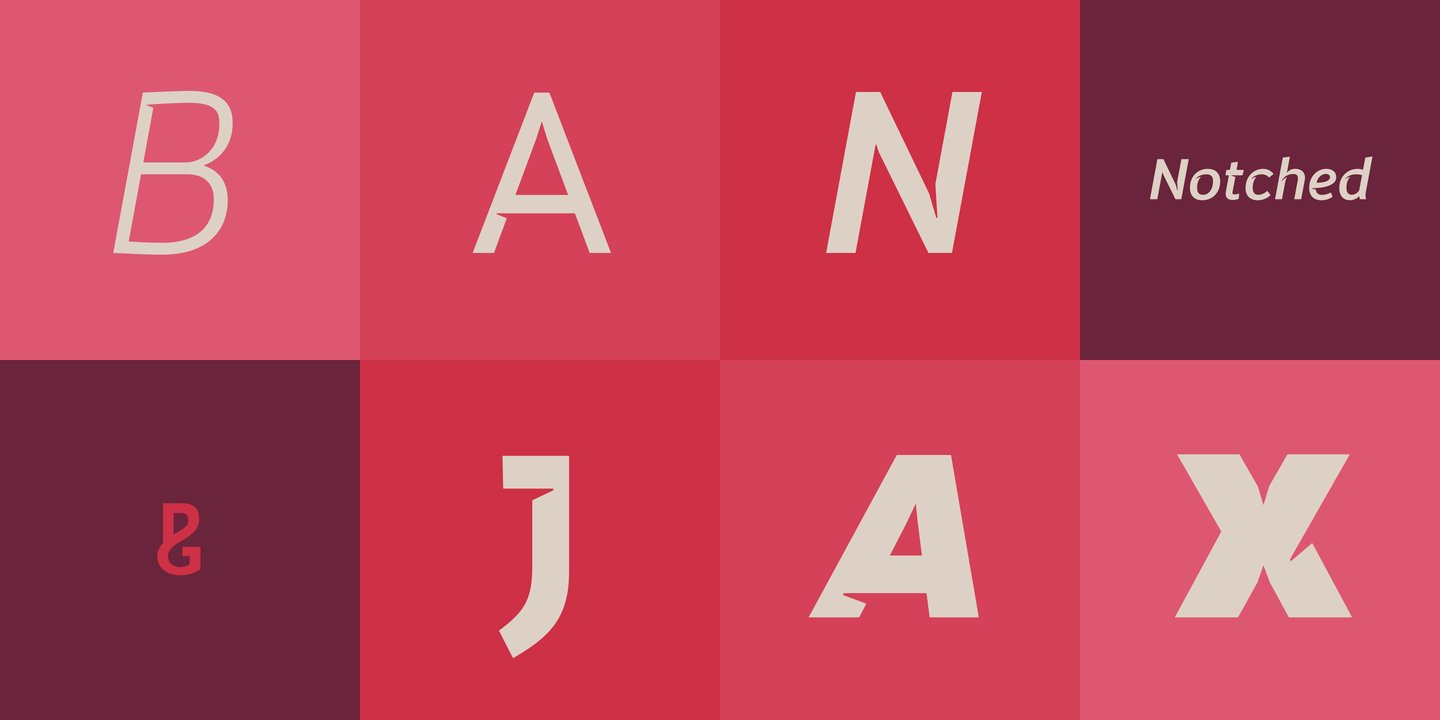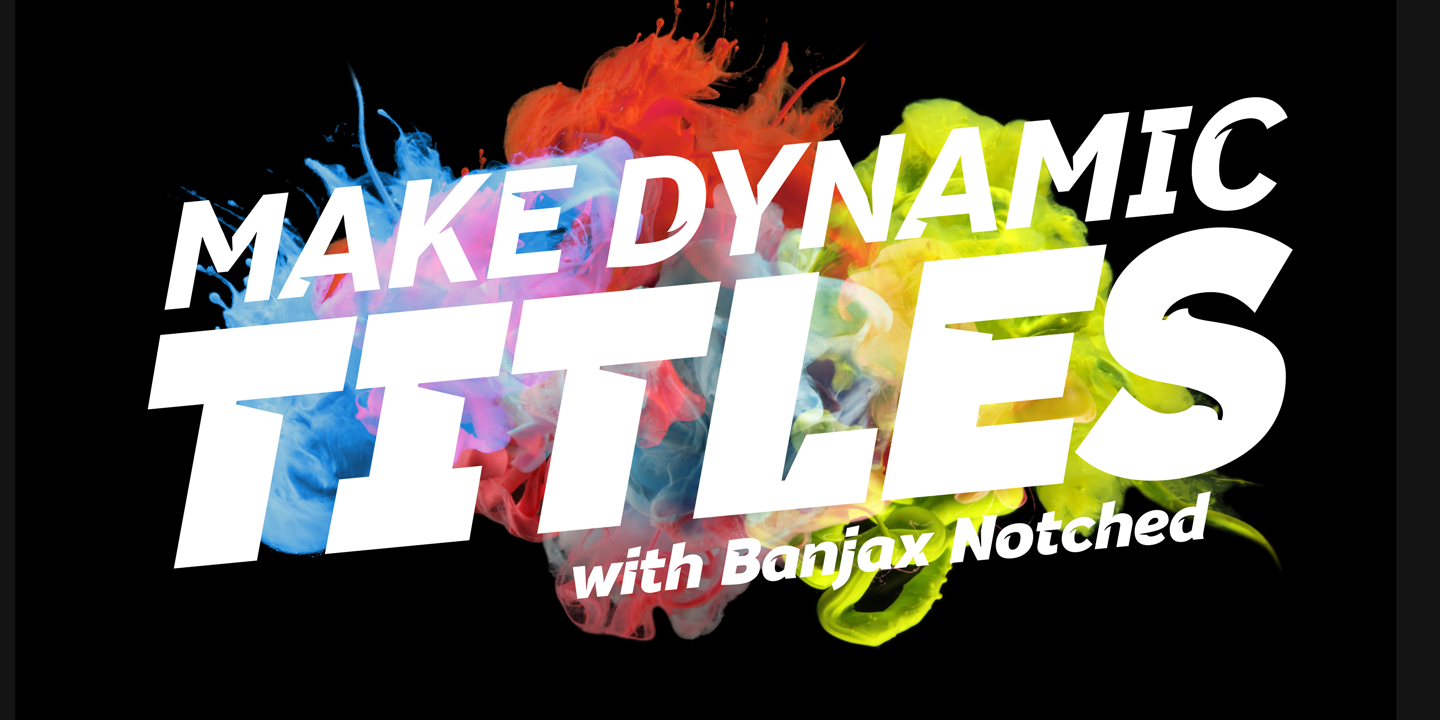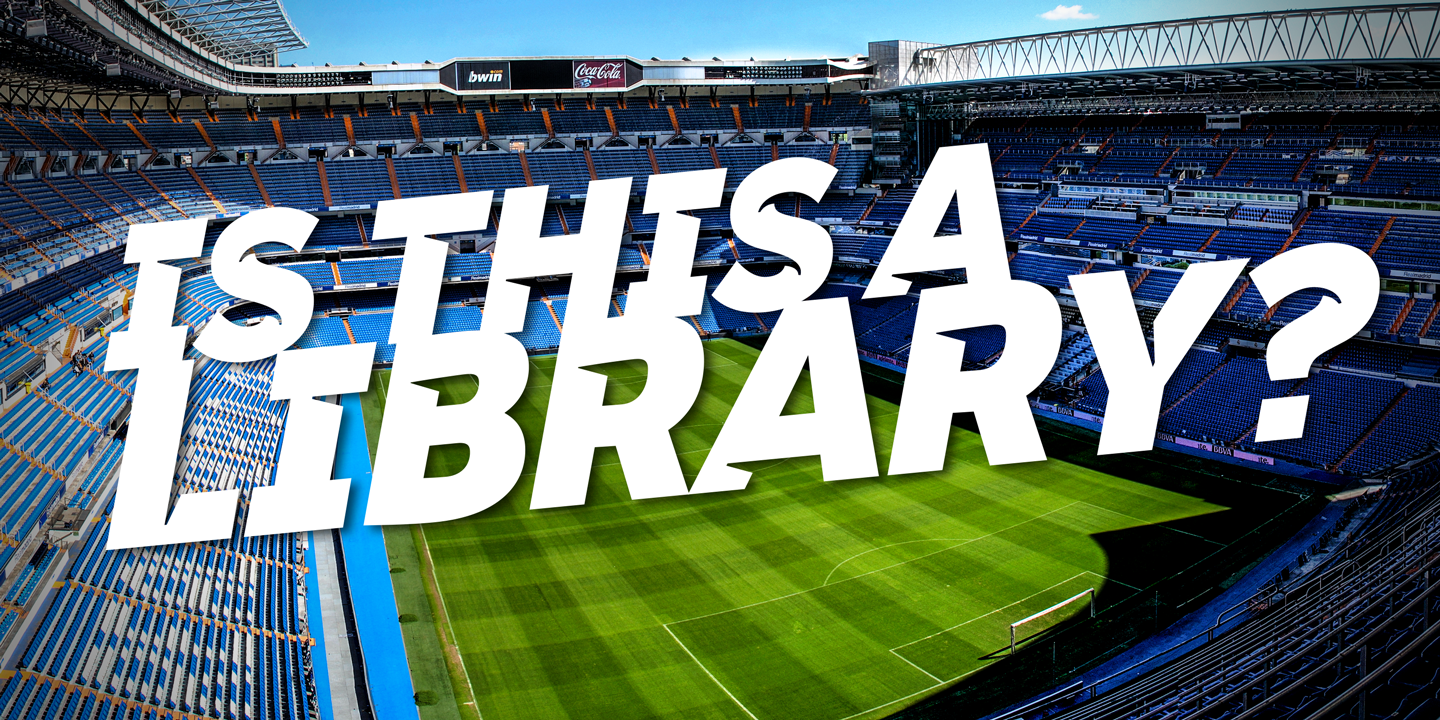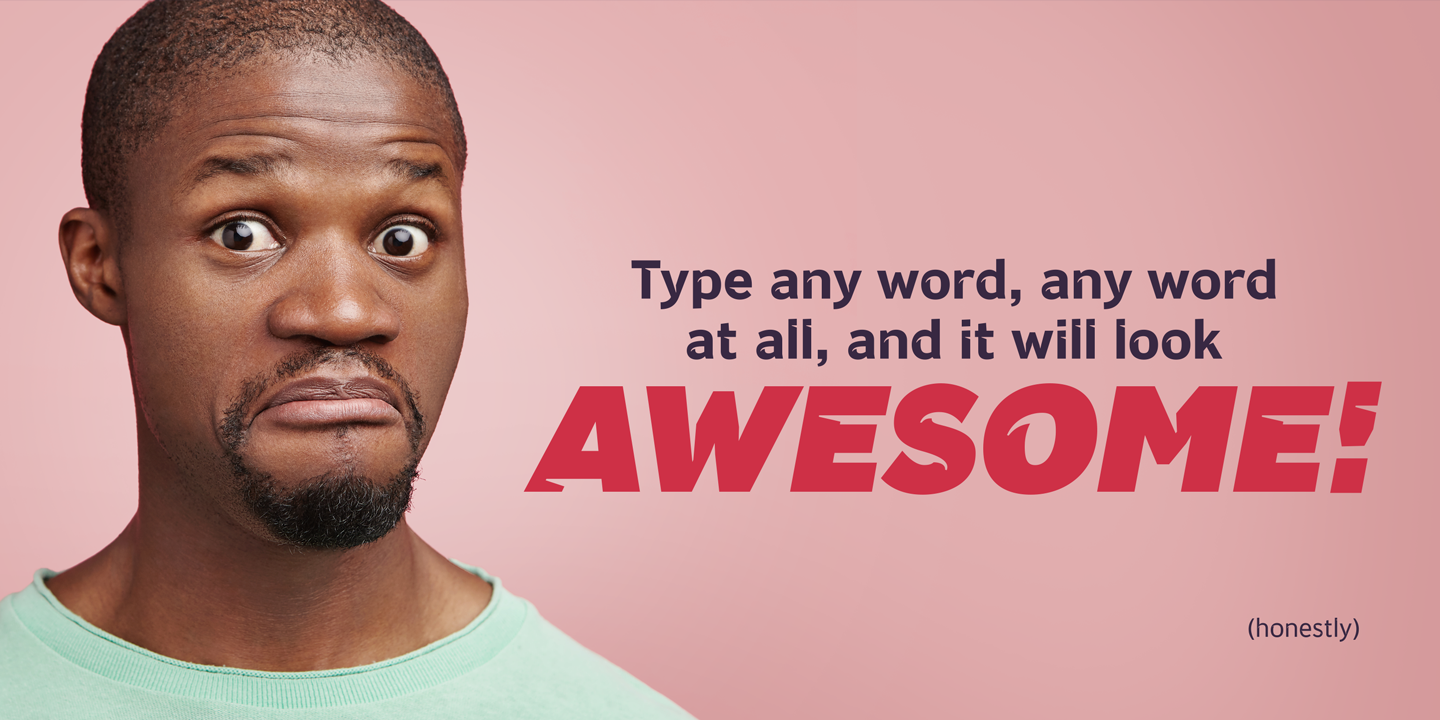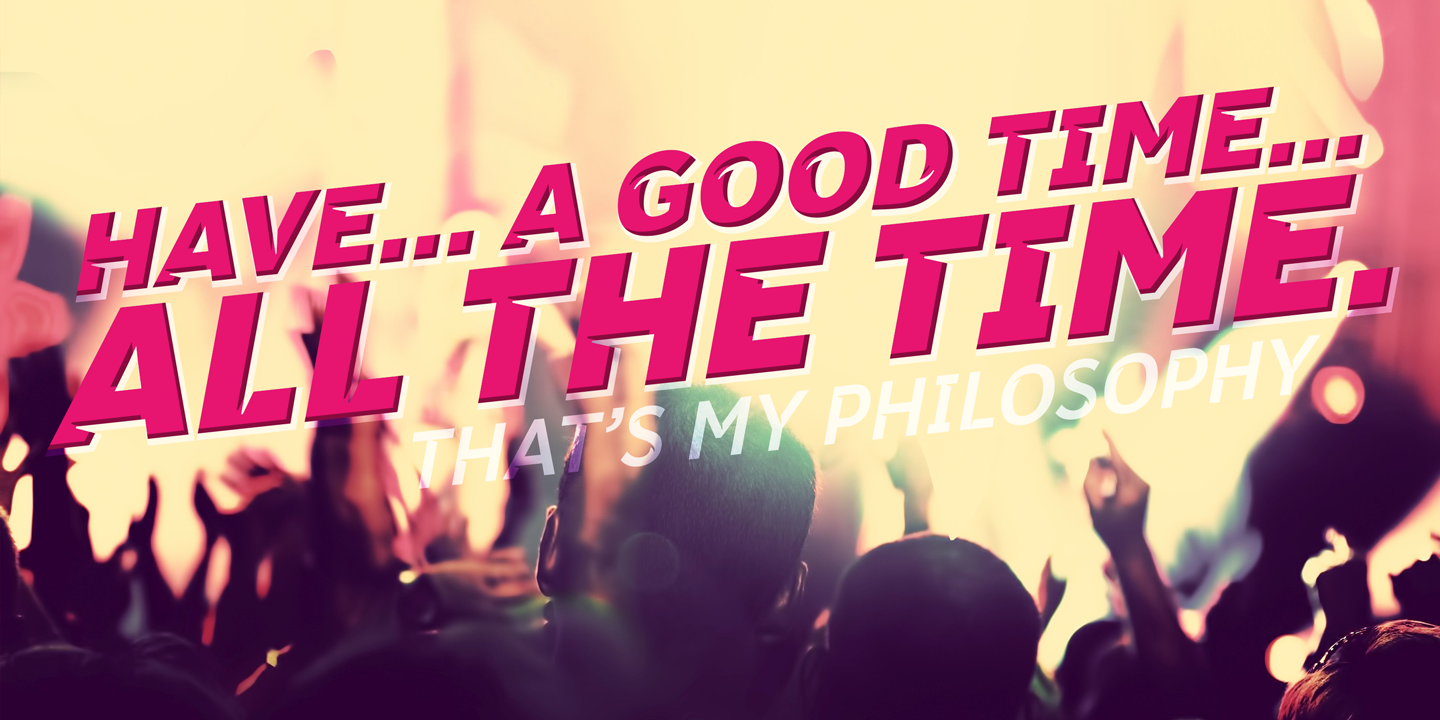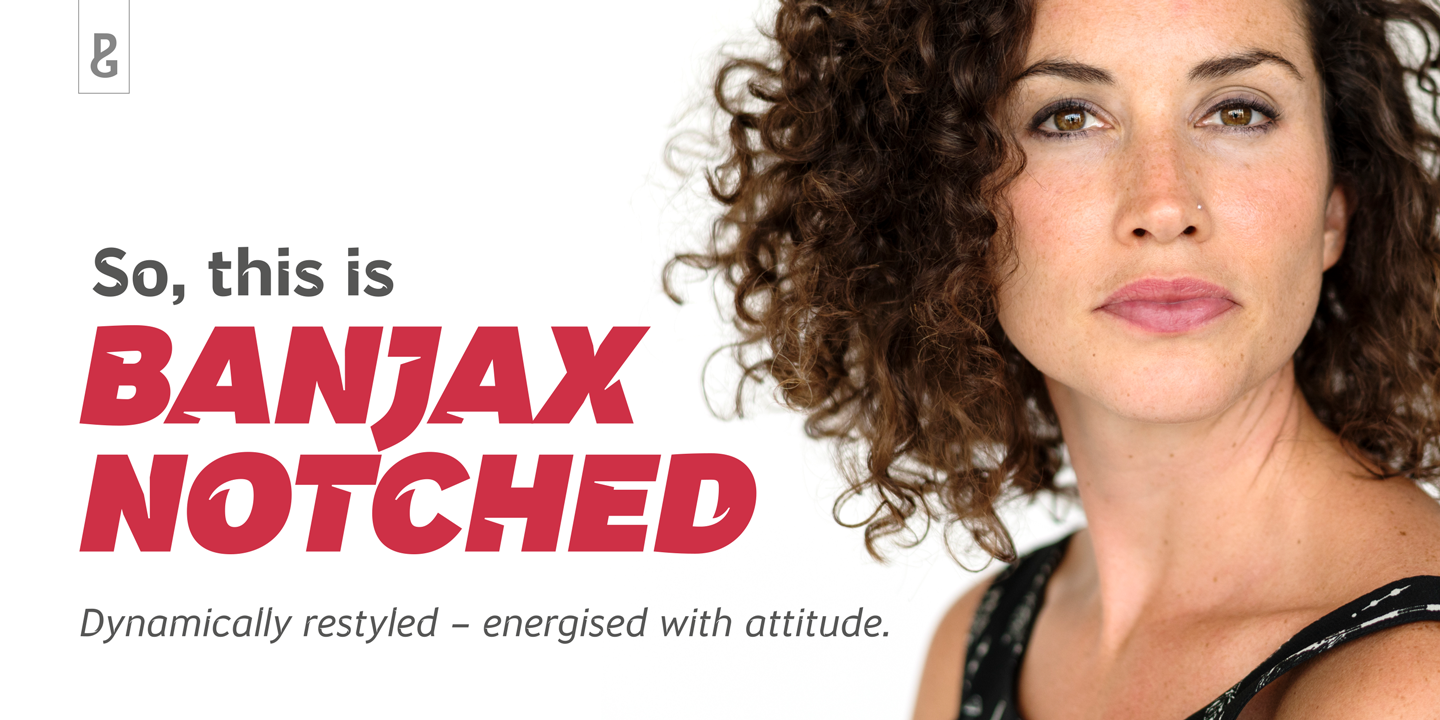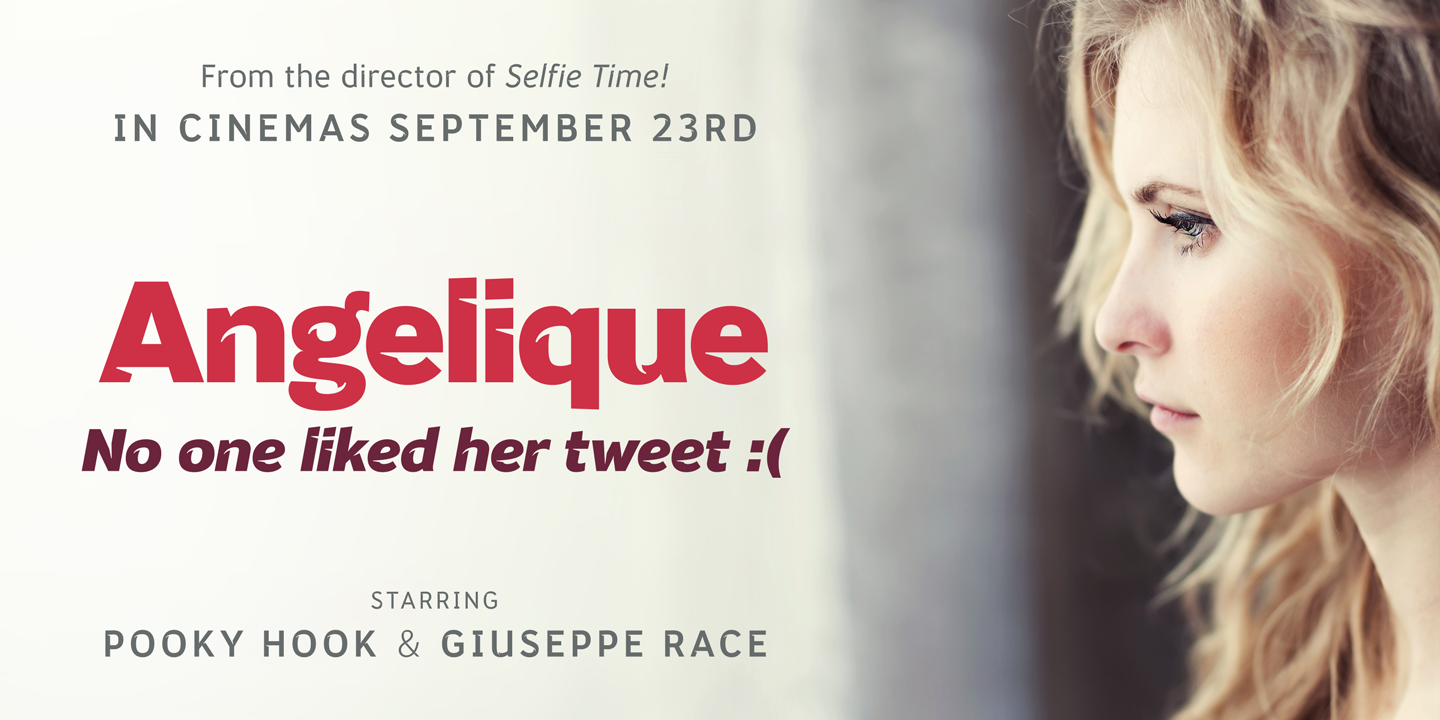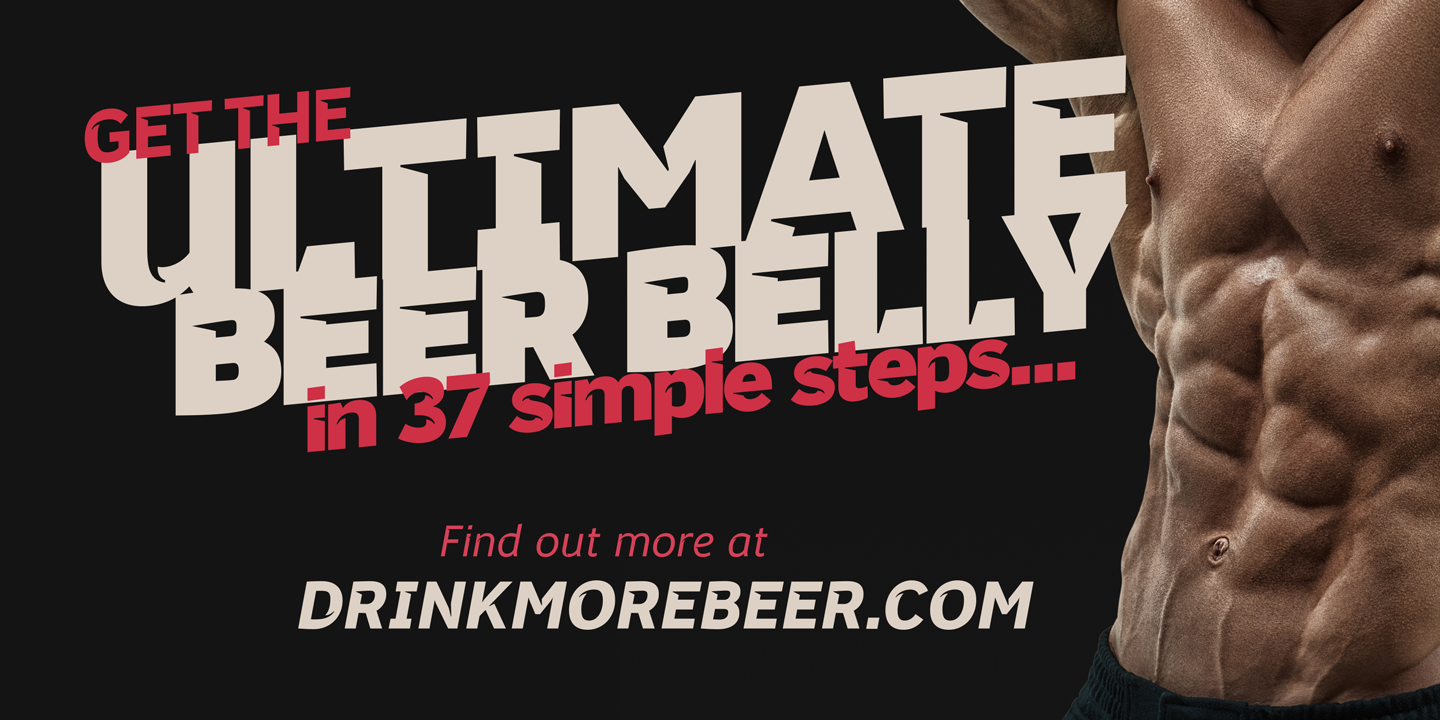
About the Banjax Notched Font
About Banjax Notched Font Family Banjax Notched is a dynamically restyled version of the original Banjax humanist sans serif typeface, Banjax Notched is intended for use in titles, headlines, branding and logo designs, whether that be for a book cover, film poster, advertising campaign or sporting events, these fonts will add an extra dimension to your designs